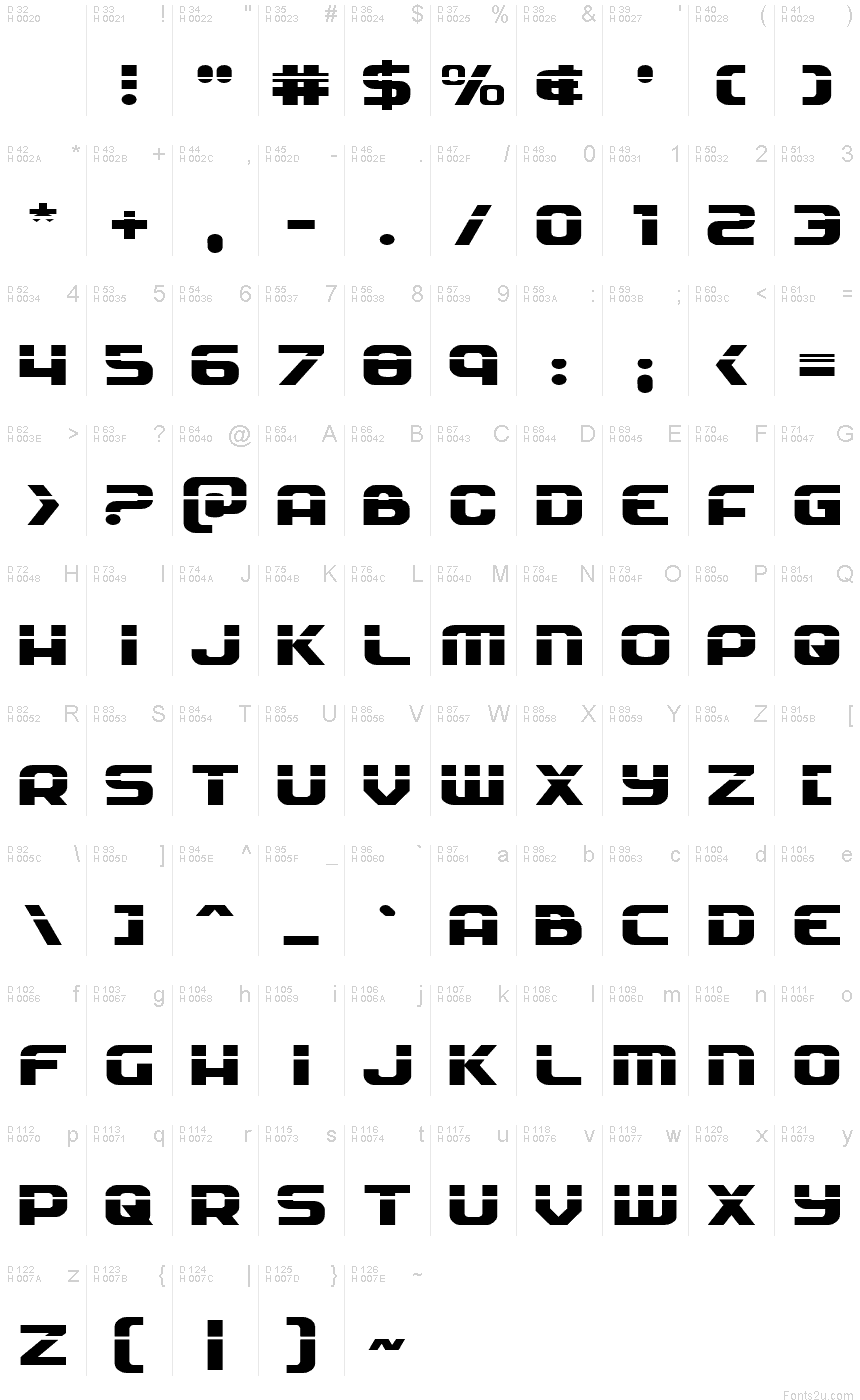
Soldier Laser Expanded by Daniel Zadorozny of Iconian Fonts is a free expanded futuristic display font with massive horizontal proportions and a tightly engineered silhouette. Its broad letters combine blunt curves with squared cuts, and narrow breaks slice through the dense strokes. The repeated interruptions give the lettering the look of segmented industrial panels.
Digital graphics are an obvious home for this design, especially game interfaces and title cards that borrow the hard surfaces and clipped geometry of fictional hardware. Science fiction posters and motorsport merchandise also fit its low, wide profile, but its most convincing role is lettering that resembles a machine label or vehicle marking.
Soldier Laser Expanded